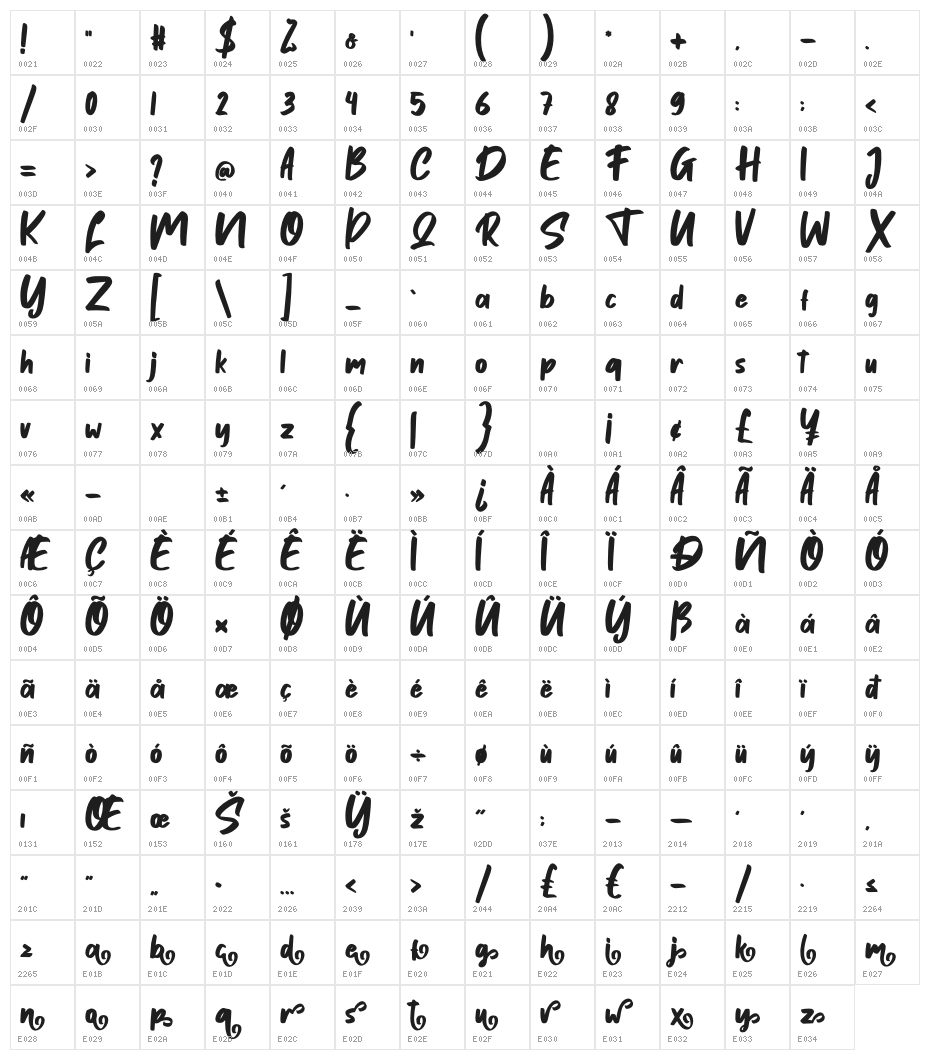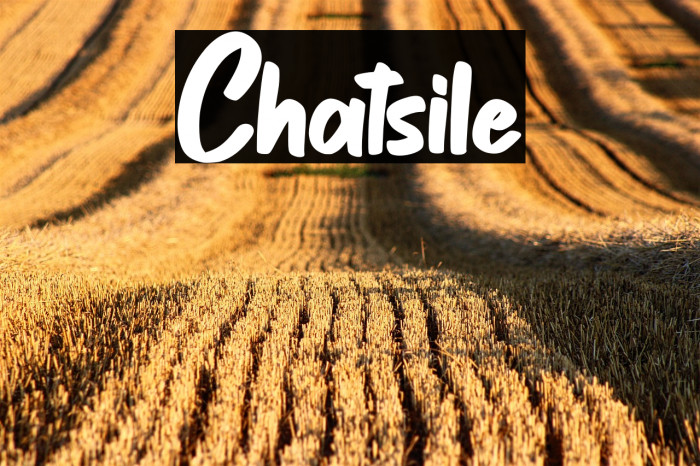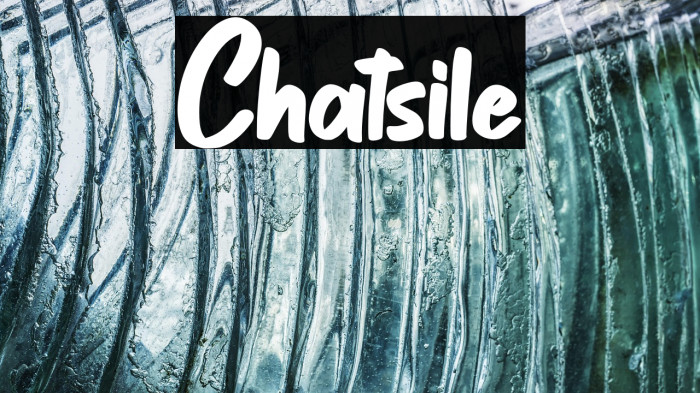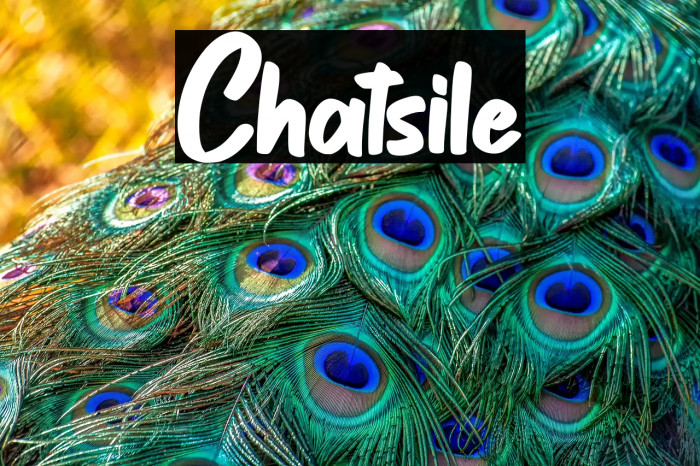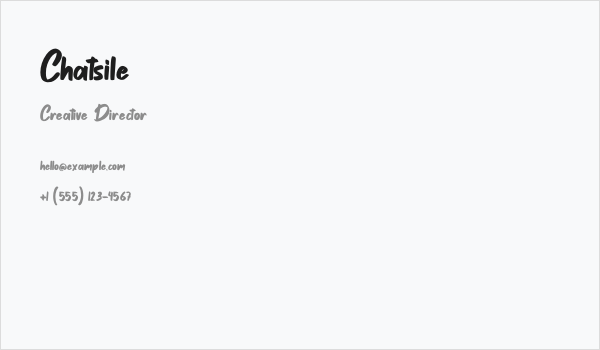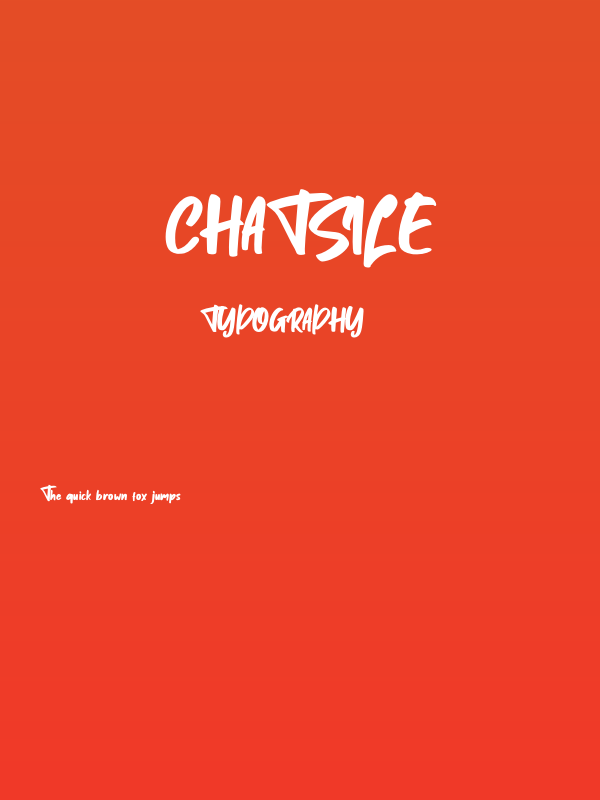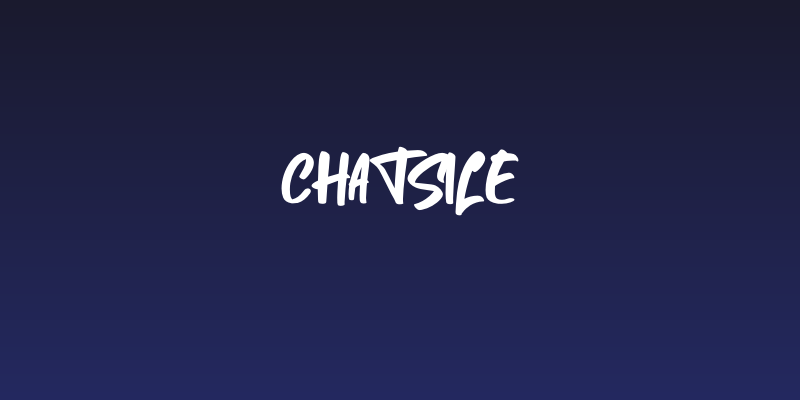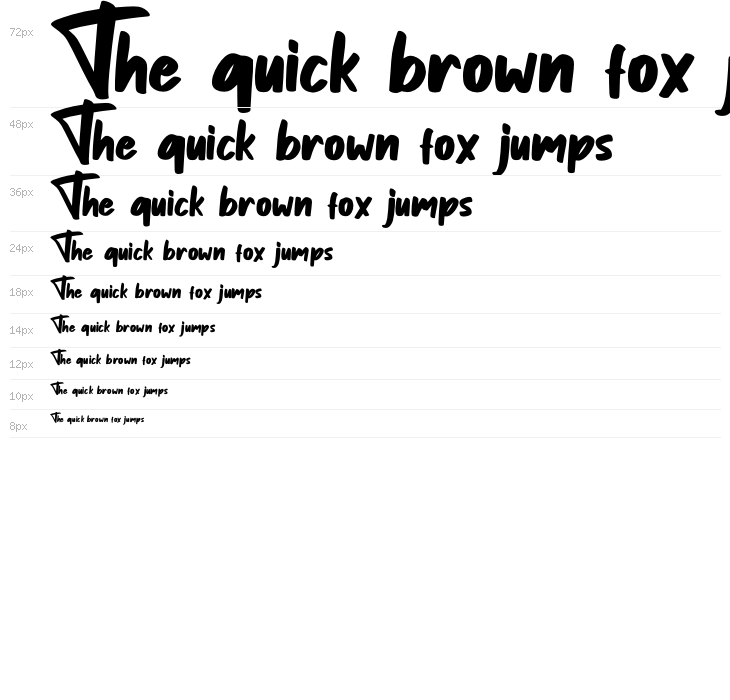
Chatsile Font
Chatsile Description
A bold, handwritten script font with a casual and playful style, featuring irregular strokes and a dynamic flow.
| Use Case | Headlines, Informal text, Branding |
| Proposed Projects | Greeting cards, posters, social media graphics. |